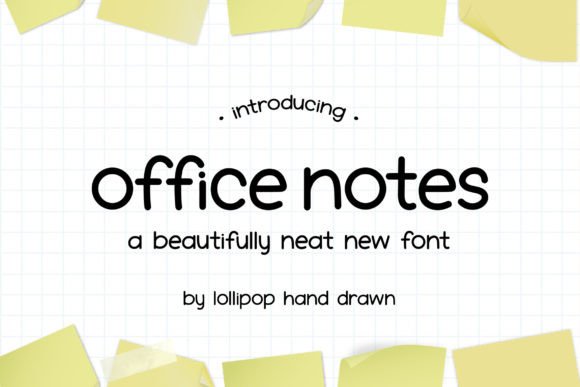
Introducing Office Notes Font, the perfect font for adding a playful touch to your creative projects! This cute and quirky sans serif font was created by Lollipop Hand Drawn and is perfect for any occasion.
Office Notes Font is versatile and easy to use, making it the perfect choice for digital design, crafts, presentations, and even greeting cards! This font has the ability to instantly elevate your designs with its unique hand-drawn style.
Whether you're a seasoned designer or a beginner just starting out, Office Notes Font is sure to become your new favorite go-to font. Its charming and whimsical style will add a touch of personality to any project, making it stand out from the crowd.
With Office Notes Font, the possibilities are endless! Use it to create beautiful logos, social media graphics, invitations, posters, and so much more. This font is the perfect choice for anyone who wants to add a touch of fun and creativity to their designs.